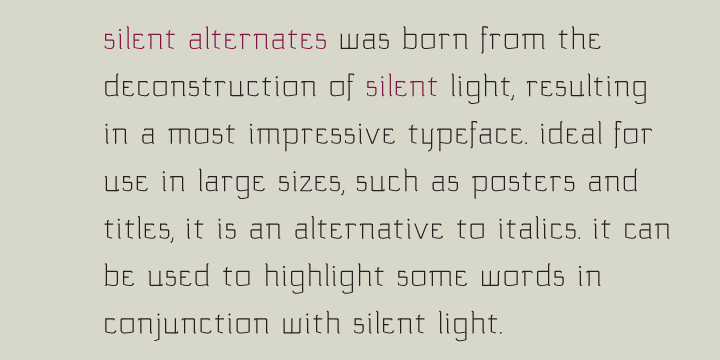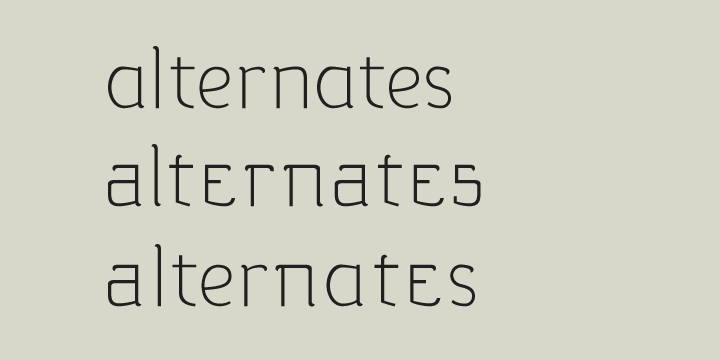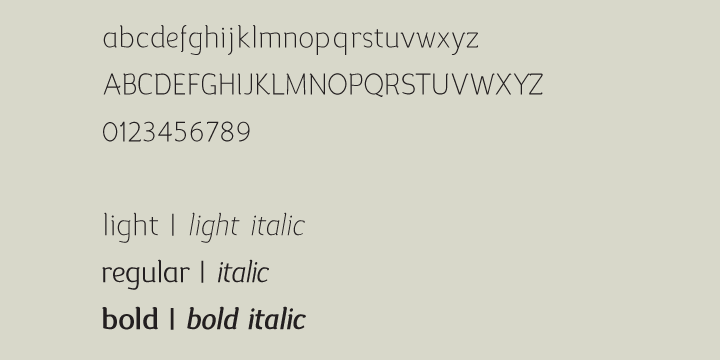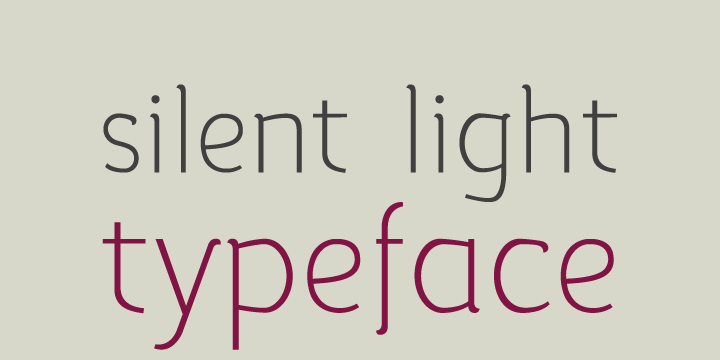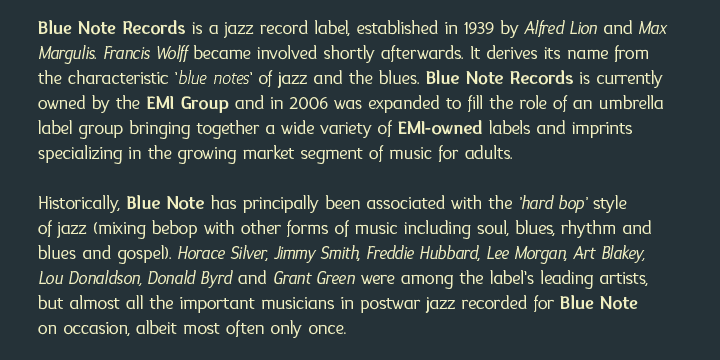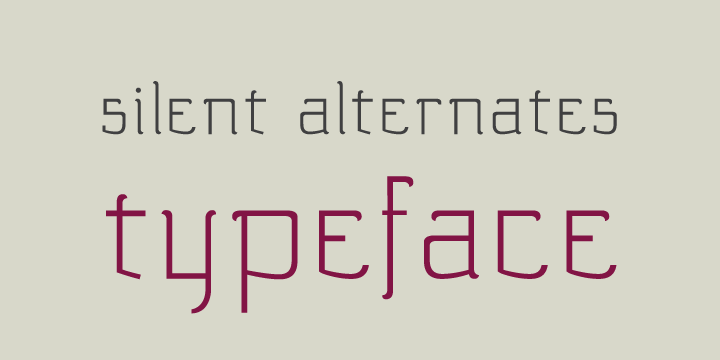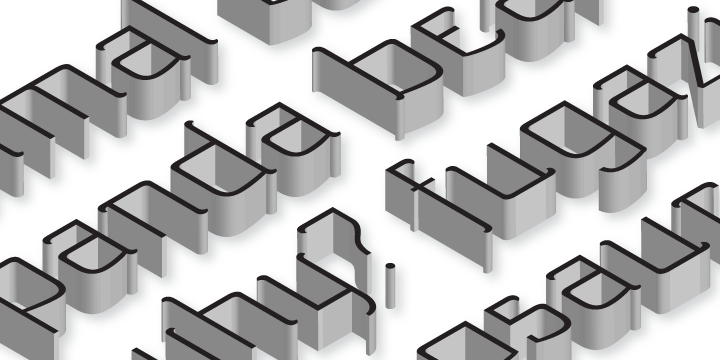
silent is a sans serif font family. This typeface has seven styles and was published by Justi Design.
Silent is a semi-serif typeface that combines readability with fluidity in a discreet and clean design. It works great on short texts
such as captions, charts and graphs. the soft curves offer a calm rhythm. The design is smooth and bring silence and concentration
while reading.
Silent alternates were born from the deconstruction of silent light,
resulting in a most impressive typeface. ideal for use in large sizes, such as posters and titles, it is an alternative to italics. it can be used to highlight some words in conjunction with silent light.